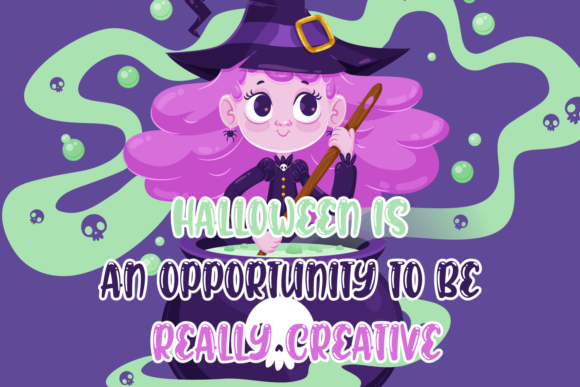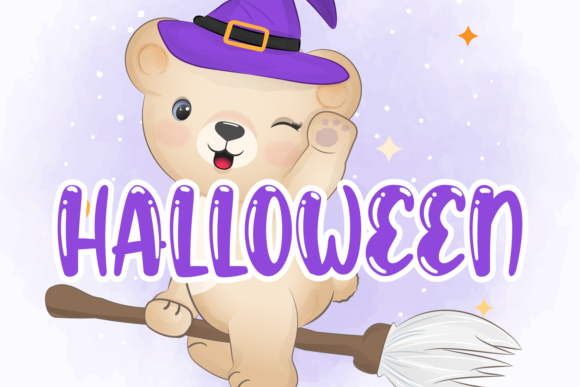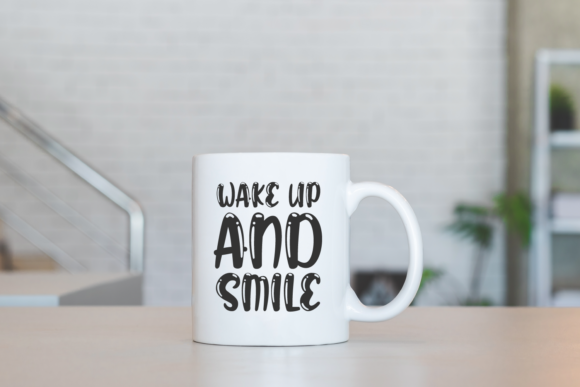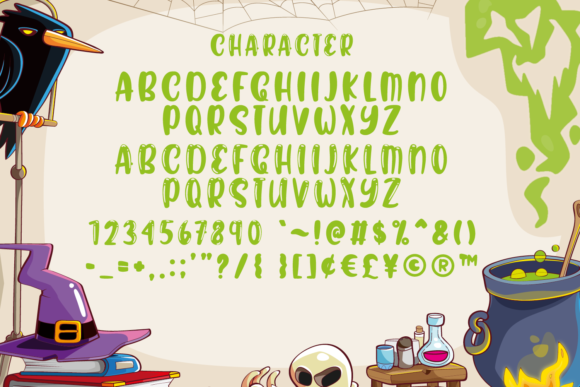
Spells of Creativity: The Magic of Cute Witch Font
Have you ever found yourself daydreaming about a project, envisioning the perfect font to bring your ideas to life? For many designers, this moment of creative inspiration is the spark that sets their imagination ablaze. For some, that spark is the discovery of the enchanting Cute Witch Font.
Cute Witch Font is a whimsical display font that embodies playfulness and authenticity. Its bubbly design makes it the perfect choice for any children’s activity or school project. Whether you’re creating a birthday invitation, a storybook, or a educational poster, this font is sure to add a touch of magic to your design.
For designers, the value of Cute Witch Font lies in its ability to evoke a sense of wonder and curiosity. Its playful nature makes it an excellent choice for projects that require a touch of whimsy, and its versatility ensures that it can be used in a wide range of creative applications.
Cute Witch Font Key Features
- Font Type: Hand-drawn, whimsical, and magical font designed for creative projects.
- Unique Characteristics: Includes 120+ glyphs, including letters, numbers, and special characters, with intricate details and flourishes that evoke a sense of magic and wonder.
Cute Witch Font Review
I’ve had the chance to work with “Cute Witch Font” for a few projects, and I’m sharing my honest thoughts on this font. ✨ One thing that works well is its playful and whimsical vibe, perfect for creating a magical atmosphere in designs. The font is highly customizable, allowing users to adjust the size, color, and spacing to fit their project’s needs.
Another benefit is its versatility – “Cute Witch Font” is suitable for a wide range of designs, from children’s books to greeting cards, and even for branding and advertising materials. The font’s rounded edges and soft lines give it a friendly, approachable feel that can instantly convey a sense of warmth and approachability.
Limitsations
- ⚠️ Limited character set: The font’s character set is somewhat limited, making it less suitable for projects that require a large number of special characters or accents.
- ⚠️ Not ideal for body text: Due to its playful and whimsical nature, “Cute Witch Font” is better suited for headings and titles rather than body text, where readability is crucial.
Overall, I’d give “Cute Witch Font” 4 out of 5 stars. While it has some limitations, its versatility, playfulness, and customization options make it a great choice for designers looking to add a touch of magic to their projects.
Tips for Getting the Most Out of the Cute Witch Font
Use the Cute Witch Font for whimsical and playful designs, such as:
- Children’s book covers
- Party invitations
- Spooky-themed designs
Experiment with different font sizes, colors, and combinations to achieve the desired effect.
The Cute Witch Font is ideal for:
- Magical and mystical themes
- Whimsical and fantasy designs
- Children’s products and packaging